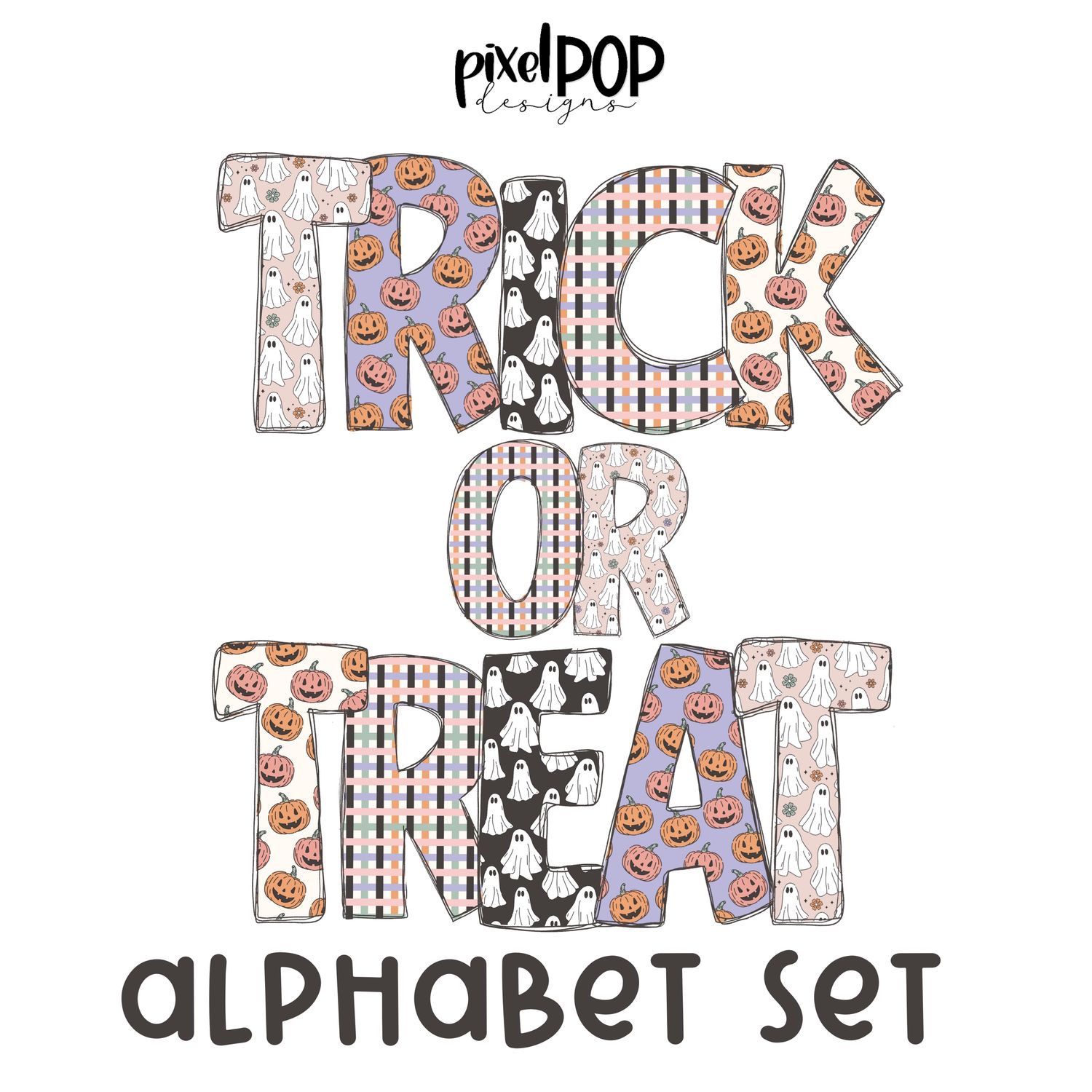
(1) Hand drawn alphabet set (letters A through Z) in purple pumpkins
(1) Hand drawn alphabet set (letters A through Z) in black ghosts
(1) Hand drawn alphabet set (letters A through Z) in plaid
(1) Hand drawn alphabet set (letters A through Z) in pumpkins
(1) Hand drawn alphabet set (letters A through Z) in ghosts and flowers